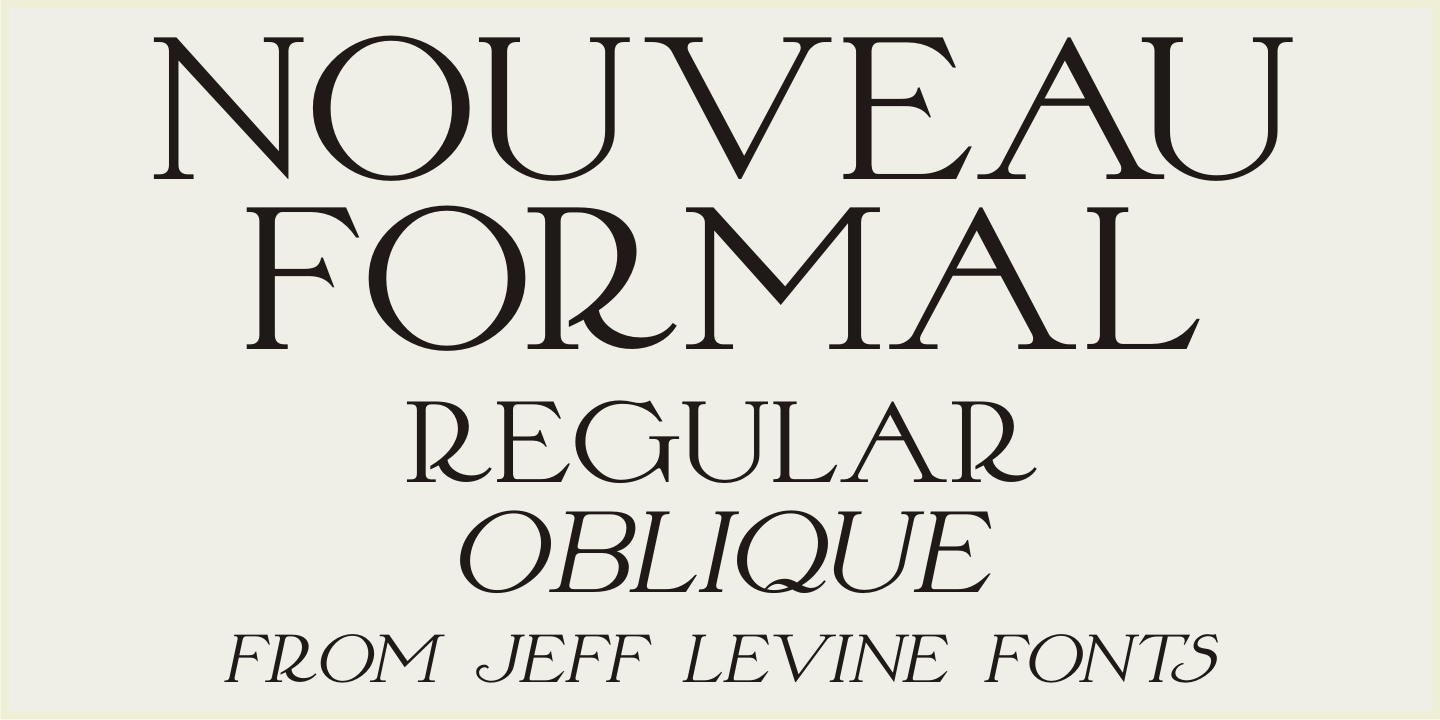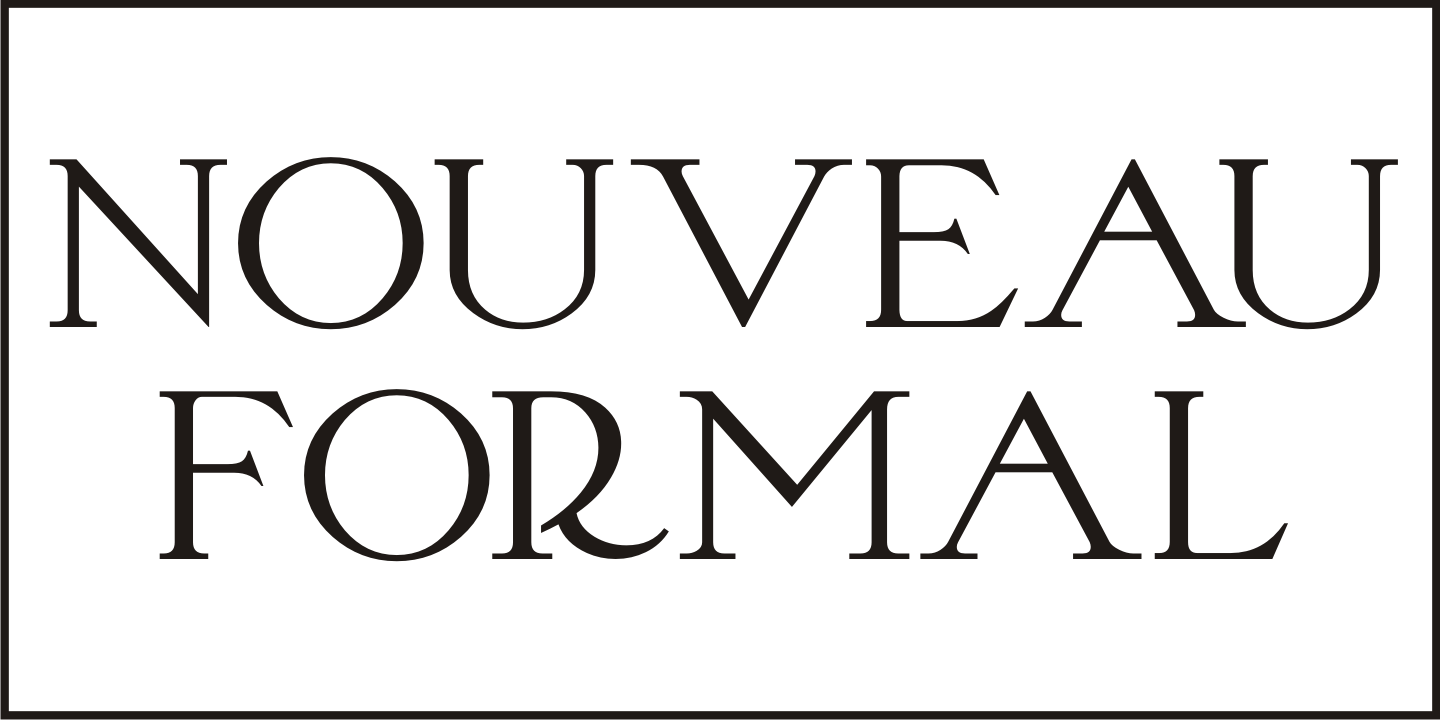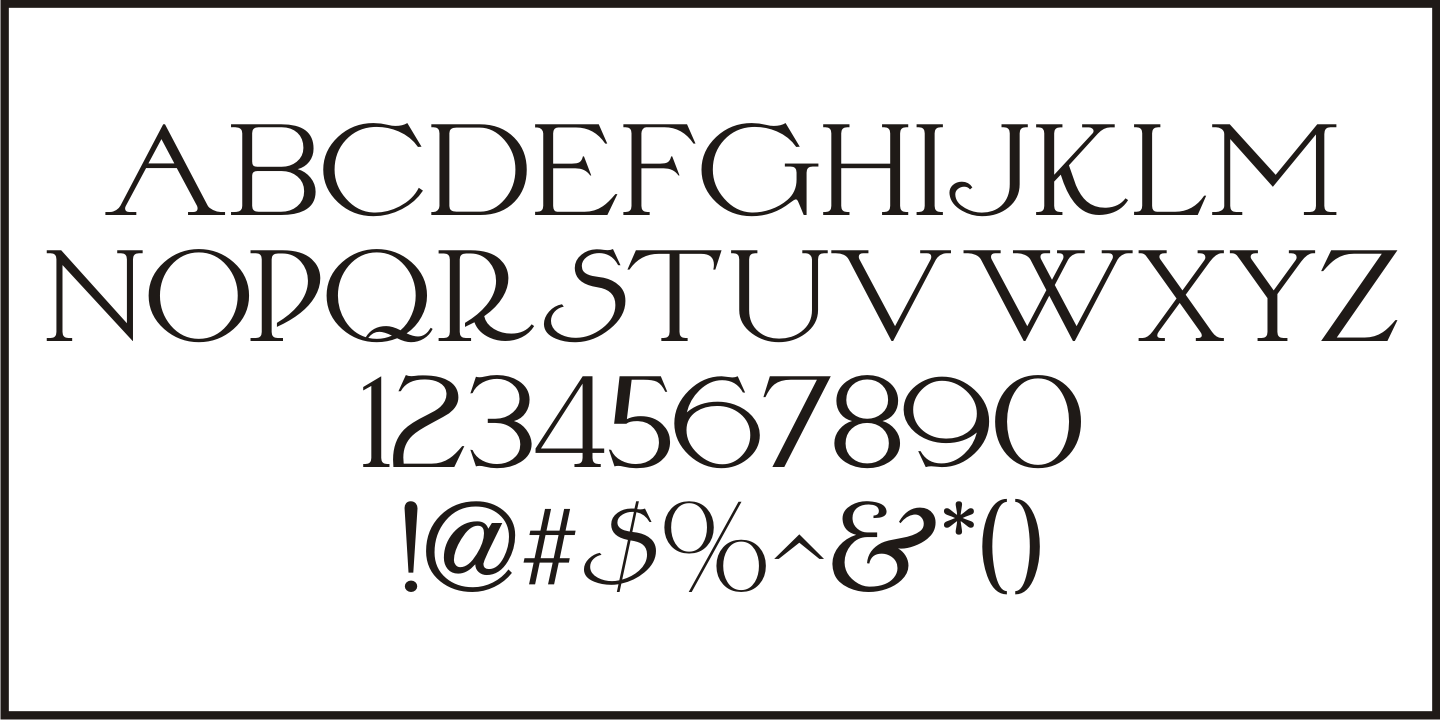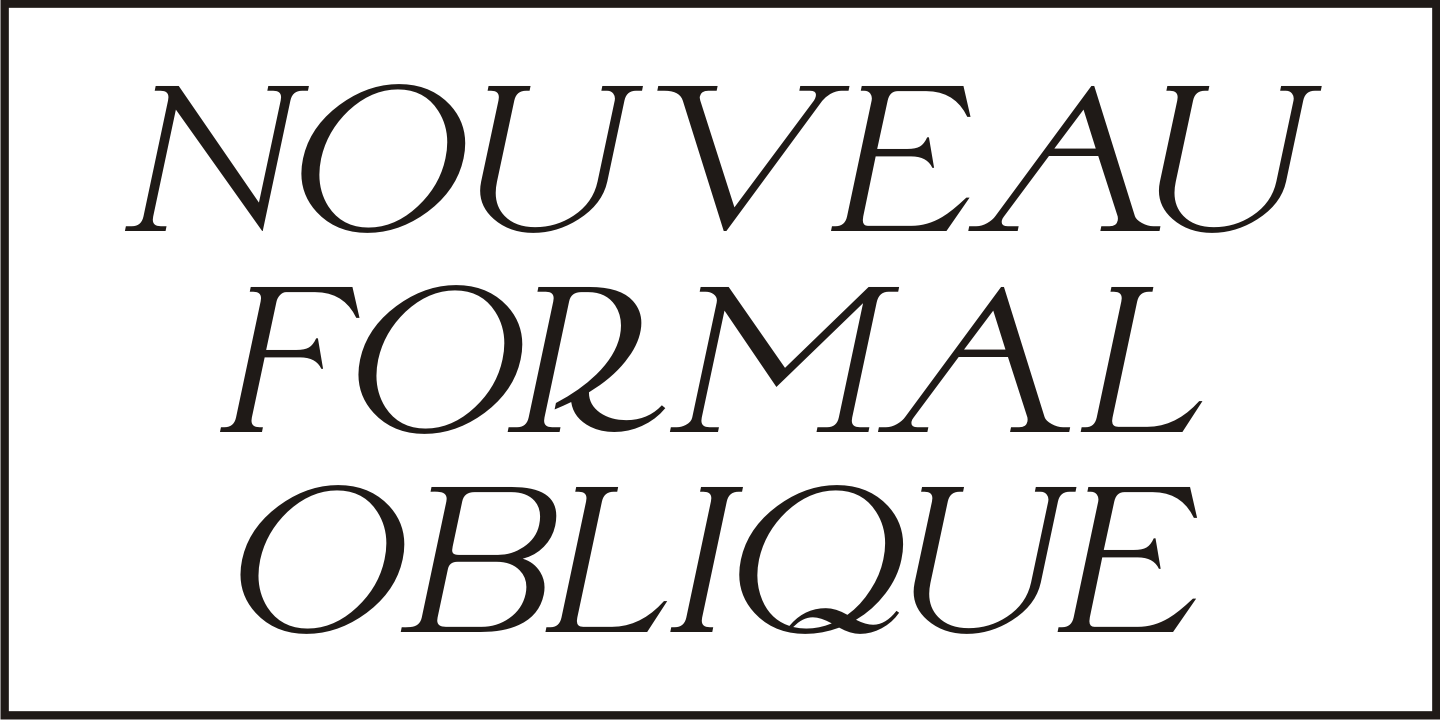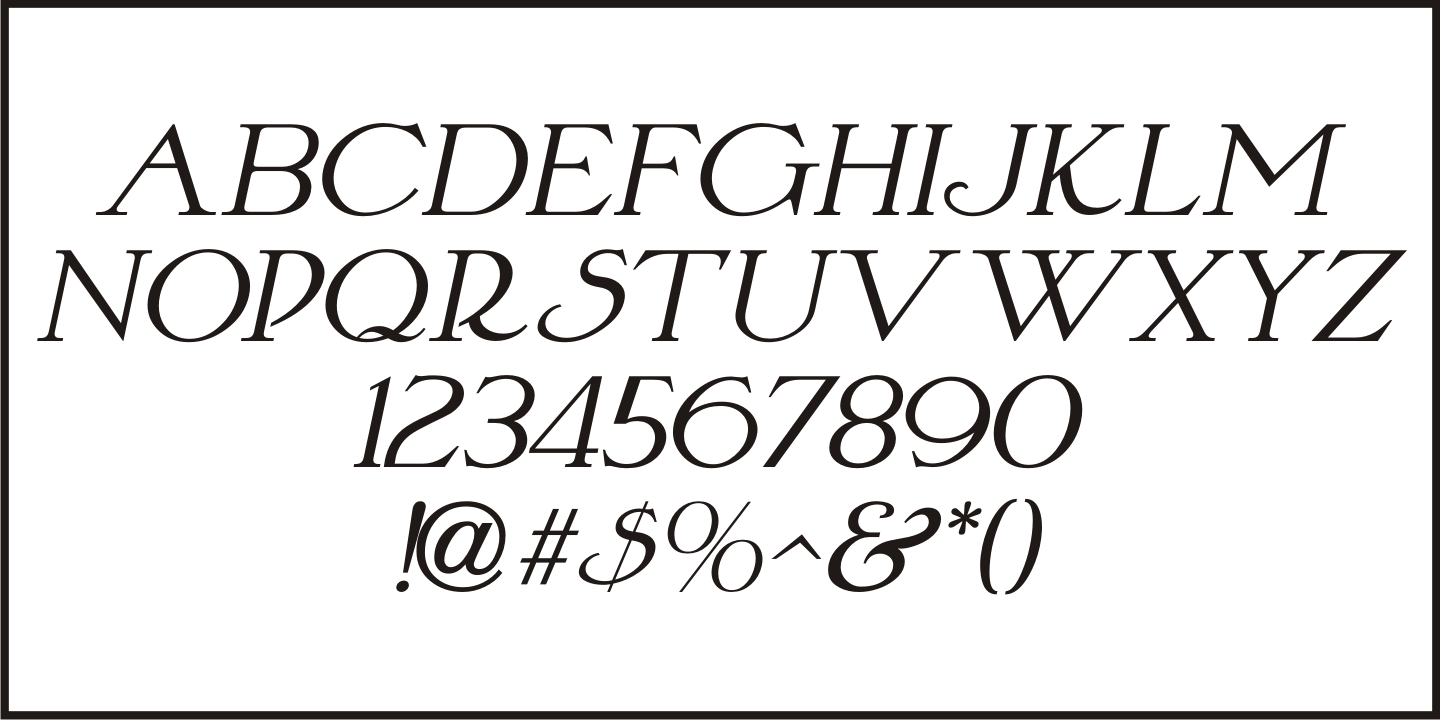
Nouveau Formal
Lettering found on the cover of 1915 textbook pamphlets from the Woman's Institute of Domestic Arts and Sciences, Inc. [of Scranton, PA] inspired the creation of Nouveau Formal JNL.
This attractive serif typeface is available in both regular and oblique versions.